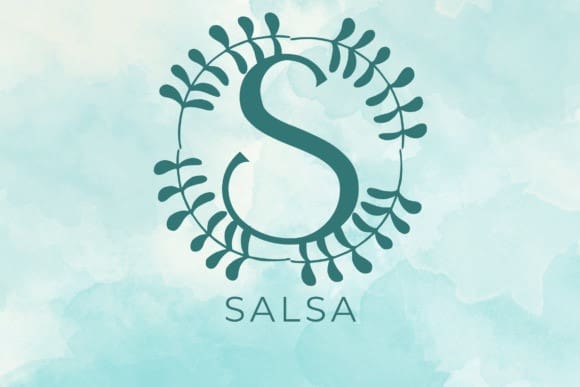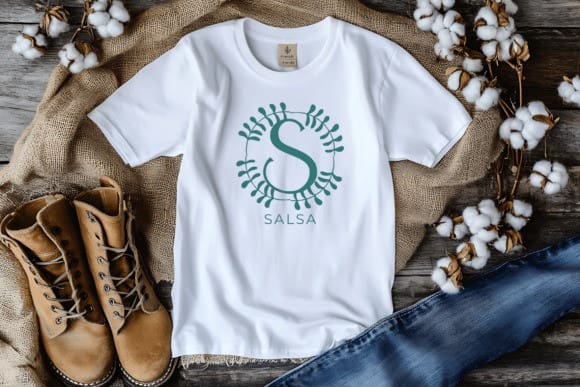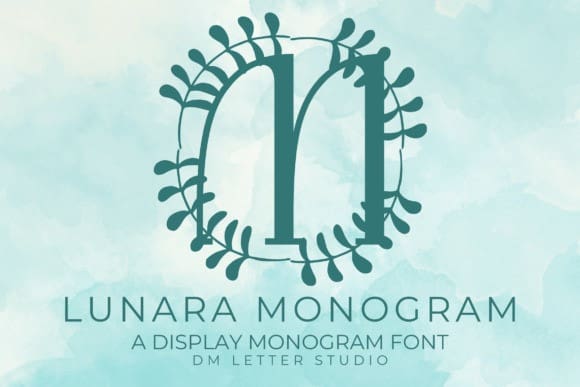
Lunara Monogram Font
Lunara Monogram Font is a sophisticated serif monogram font crafted for creators who want to blend modern refinement with timeless grace. Ideal for luxury branding, custom stationery, wedding invitations, personalized gifts, and boutique logos, Lunara is designed to give your monograms a polished, upscale look without losing warmth or individuality.
This typeface features graceful serif strokes with a slightly modern twist. Each uppercase letter is thoughtfully designed with balanced proportions, subtle curves, and elegant detailing. Whether you’re engraving initials on leather goods or designing logos for high-end businesses, Lunara Monogram brings a clean, high-impact aesthetic that fits both minimal and ornate designs.
With its strong vertical posture and delicate finishing strokes, Lunara stands out in both large-scale signage and detailed designs like product tags, thank-you cards, or digital branding. The font includes a complete A–Z uppercase character set, numerals, basic punctuation, and multilingual support—making it as versatile as it is beautiful.
Lunara Monogram’s refined serif style pairs beautifully with both script fonts and minimal sans-serifs, giving you flexible options when building out cohesive brand systems or personal monogrammed pieces. Its gentle sophistication makes it a go-to choice for those who want their designs to feel modern yet timeless